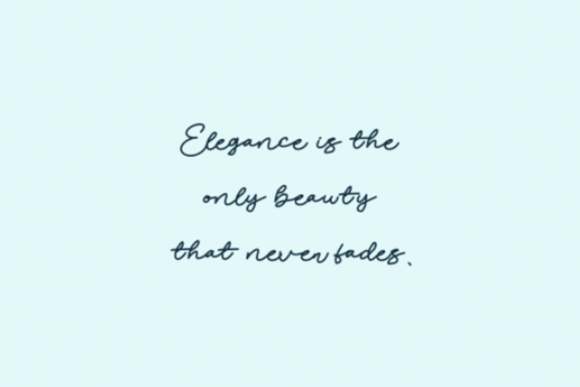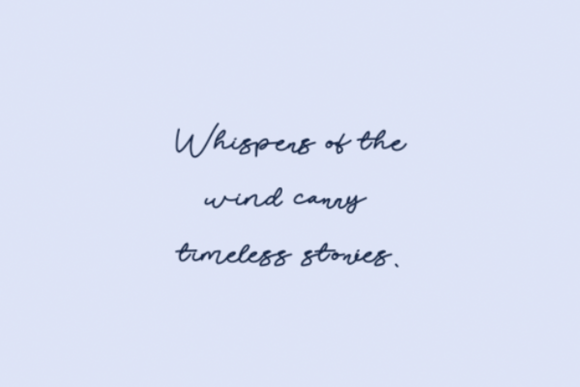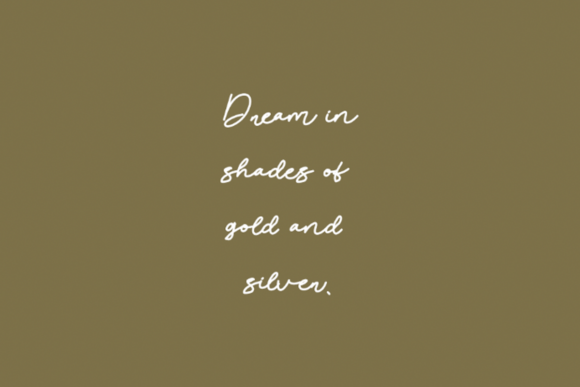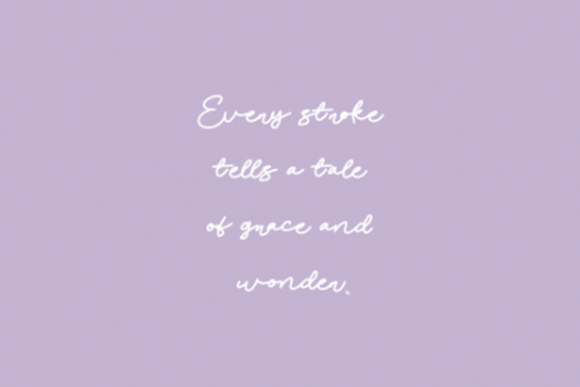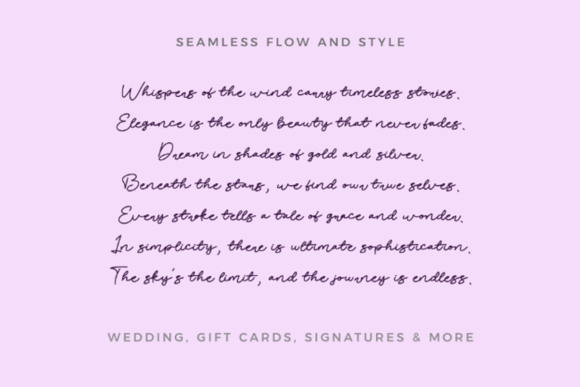
Introducing Elowen Font: Elevate Your Designs with Elegance and Sophistication
In the world of typography, few fonts manage to capture the essence of elegance and sophistication as effortlessly as Elowen Font. This stunning hand-lettered script font is a masterpiece of modern design, boasting a distinctive linear rendering that exudes a personalized, artistic flair. Whether you’re a designer, crafter, or simply someone who appreciates the beauty of fine typography, Elowen Font is sure to captivate your senses and inspire your creativity.
The Art of Elegance: What Sets Elowen Font Apart
Elowen Font is more than just a collection of letters – it’s an experience. Meticulously crafted to impart a signature touch to your design ventures, this font is characterized by its delightful versatility and enchanting charm. From wedding invitations to gift cards, signatures to planners, Elowen Font brings an unparalleled level of sophistication and refinement to any project. Its unique blend of classic elegance and modern flair makes it the perfect choice for those seeking to add a touch of luxury to their designs.
Endless Possibilities: Exploring the Versatility of Elowen Font
One of the most striking aspects of Elowen Font is its incredible versatility. This font is not limited to a specific genre or application – it’s a chameleon that can adapt to any design style or theme. Here are just a few examples of how you can use Elowen Font to elevate your designs:
- Wedding Invitations: Add a touch of romance and whimsy to your wedding invitations with Elowen Font. Its elegant script and flowing lines create a beautiful, eye-catching effect that’s sure to set the tone for your special day.
- Gift Cards: Give your gift cards a personal touch with Elowen Font. This font’s sophisticated style and luxurious feel make it perfect for creating unique and memorable gift cards that will be treasured by your recipients.
- Signatures: Make your signatures more impressive with Elowen Font. Whether you’re looking to add a touch of elegance to your email signature or create a beautiful, handwritten signature for your artwork, this font is the perfect choice.
- Planners: Enhance your planners with the beauty and sophistication of Elowen Font. This font’s clear, flowing lines make it easy to read and use, even for those with limited design experience.
Beautifying Note-Taking with Elowen Font
Note-taking doesn’t have to be boring – with Elowen Font, you can add a touch of artistry and elegance to your notes. This font’s unique style and flowing lines make it perfect for creating beautiful, eye-catching notes that will inspire you to be more creative and organized. Whether you’re a student, artist, or simply someone who loves to jot down ideas, Elowen Font is the perfect tool for adding a touch of personality to your note-taking.
Why Designers and Crafters Love Elowen Font
So why do designers and crafters love Elowen Font? Here are just a few reasons:
- Unique Style: Elowen Font boasts a unique, hand-lettered style that’s unlike anything else on the market. Its distinctive linear rendering and elegant script make it a standout in any design.
- Ease of Use: Despite its sophisticated style, Elowen Font is incredibly easy to use. Whether you’re a seasoned designer or just starting out, this font is simple to install and integrate into your designs.
- Endless Inspiration: Elowen Font is a font that will inspire you to be more creative and experiment with new design ideas. Its versatility and elegance make it the perfect choice for designers and crafters who want to push the boundaries of what’s possible.
Conclusion: Discover the Magic of Elowen Font
In conclusion, Elowen Font is a true masterpiece of modern typography. Its elegant script, distinctive linear rendering, and incredible versatility make it the perfect choice for designers, crafters, and anyone who appreciates the beauty of fine typography. Whether you’re looking to add a touch of sophistication to your wedding invitations, gift cards, signatures, or planners, Elowen Font is the perfect tool for elevating your designs and inspiring your creativity. So why wait? Dive into the artistic allure and enchanting charm of Elowen Font today and discover a world of limitless design possibilities!